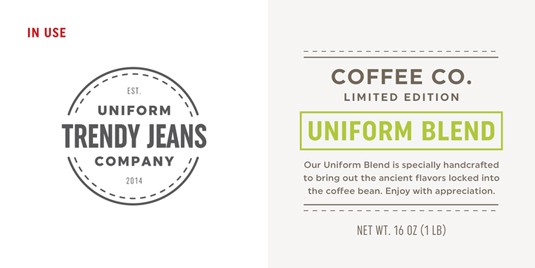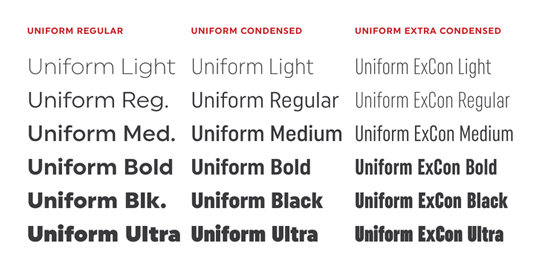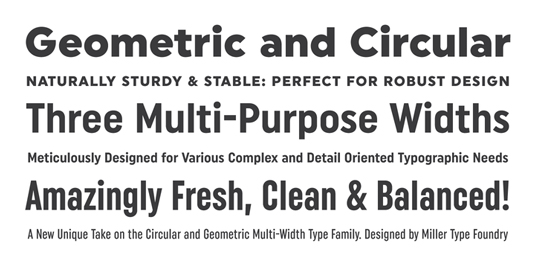
Font of the day: Uniform
Every day we showcase the best fonts on the web. Today it's Uniform by Richard Miller.
Uniform by Richard Miller
Today's typeface of choice is Uniform, a multi-width geometric type family designed around the circle. Created by designer Richard Miller and available from MyFonts, the font is described as a 'remarkably fresh type family that bridges the gap between circular geometric typefaces and condensed straight-sided typefaces'.